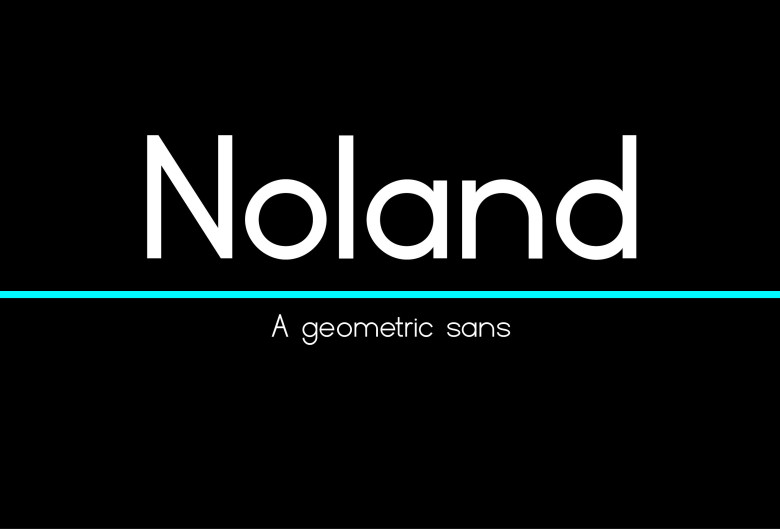
Noland Font
Noland font features an understated and modernist design. As a sans serif font, Noland boasts timeless sans style with great versatility for web design, printed materials and more. Choose one of nine variations to light or dark for web or print use; bolden it for easier reading!
Noland font can be used in both contemporary and modern designs, including computer screens, web posts, magazines, geometric media and other digital mediums. Noland provides clarity with each letter’s firmness to meet design demands that require clarity and firmness of each character.
Noland Sans Serif Font